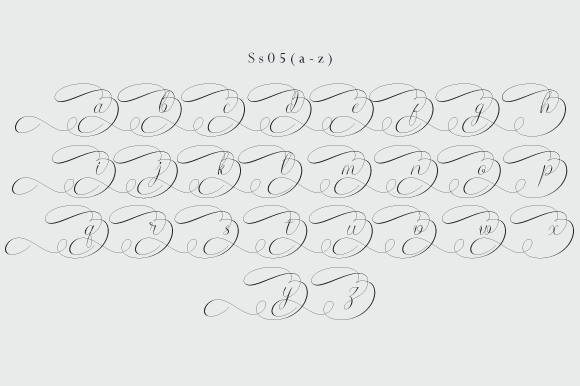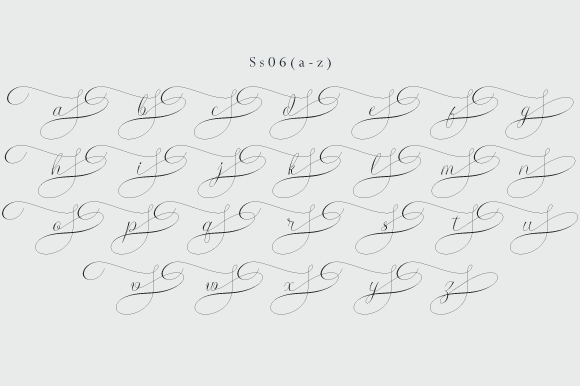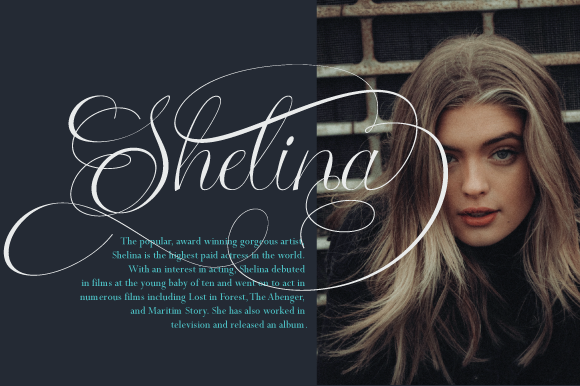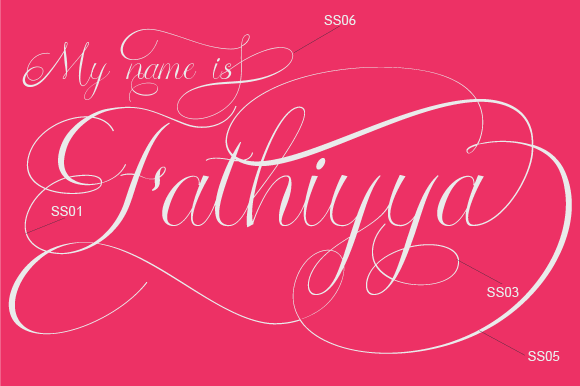
About Fathiyya Font
Fathiyya is a script font that is perfect for works that require a stylistic, natural, and elegant feel. Each shape in this font is made differently without duplicates for each character which creates a beautiful natural impression. This font is very suitable for use in various projects such as brochures, invitations, personal brands, and others.
The Fathiyya script has many beautiful alternate styles and supports various languages. This font is PUA encoded which means you can access all of the glyphs and swashes with ease!